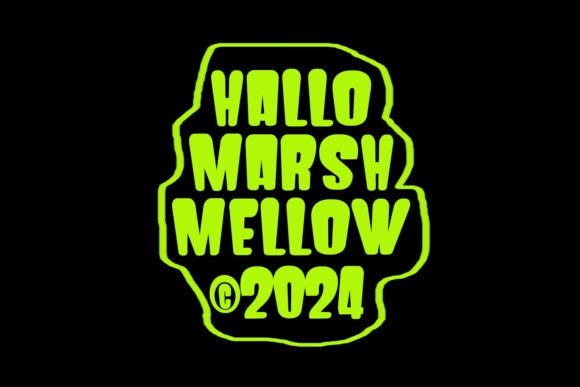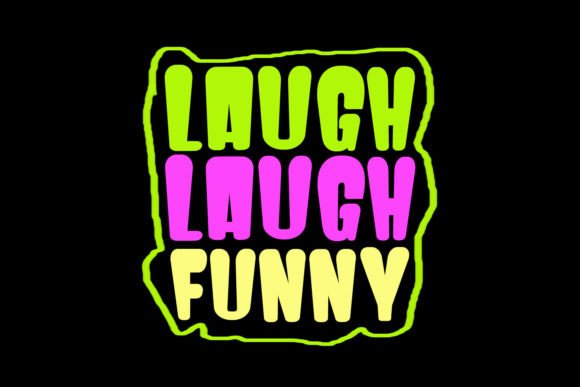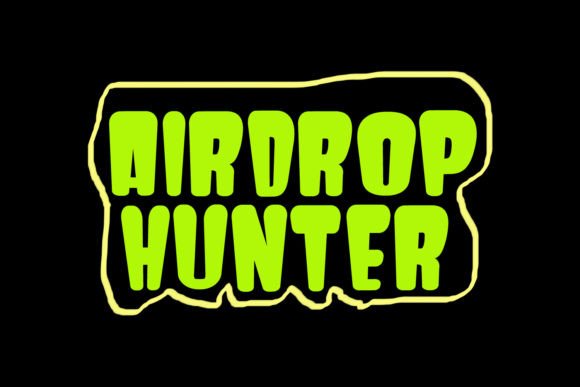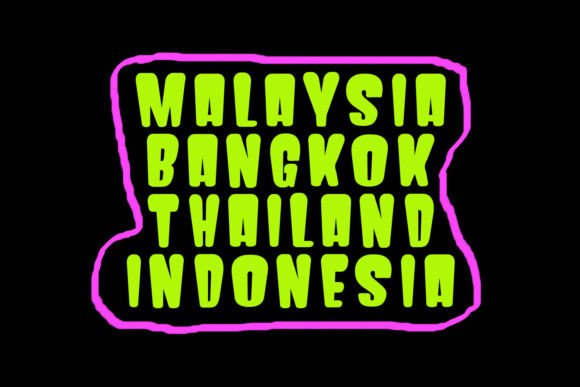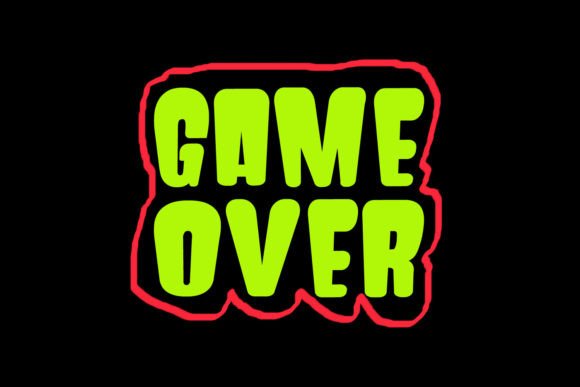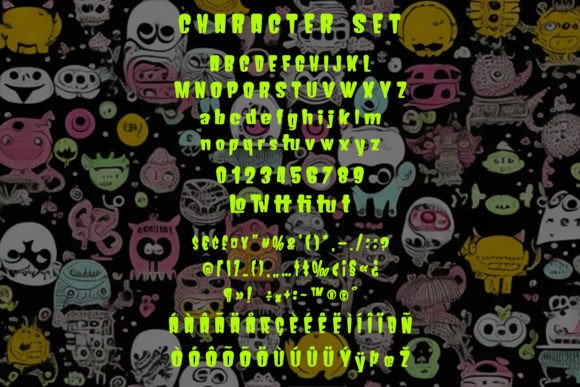
The Ultimate Guide to Anutic Font: Adding a Playful Twist to Your Designs
Have you ever been working on a project, and suddenly, you’re stuck on finding the perfect font? I recall a recent experience where I was designing a flyer for a children’s party, and I just couldn’t find a font that captured the playful vibe I was going for. That’s when I stumbled upon the Anutic font, and it completely transformed my design!
Anutic is a playful and unique display font that brings a lot of fun to your designs. It comes with special characters, including alternate versions of letters and cool combinations called ligatures. Perfect for making your text stand out!
An Honest Review of Anutic Font
What I Love About Anutic Font ✨
- ✅ Unique and playful design that’s perfect for creative projects
- ✅ Includes special characters, such as alternate versions of letters and ligatures
- ✅ Easy to use and works seamlessly with OpenType features
- ✅ Great for making headlines, titles, and other display text
- ⚠️ May not be suitable for body text or smaller font sizes
- ⚠️ Limited use of Anutic font in formal or professional designs
The Backstory of Anutic Font
Anutic font was designed with the intention of creating a unique and playful display font that would bring fun and creativity to designs. The designer aimed to create a font that would be perfect for making headlines, titles, and other display text.
Q: What is the Anutic font best used for?
A: The Anutic font is best used for display text, such as headlines, titles, and other creative projects.
Q: Is the Anutic font suitable for body text?
A: No, the Anutic font is not suitable for body text or smaller font sizes. It’s best used for display text.